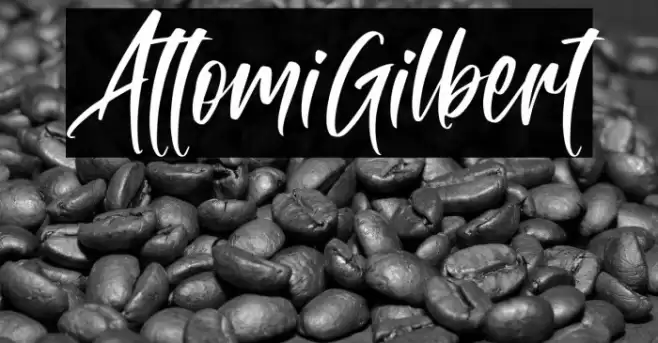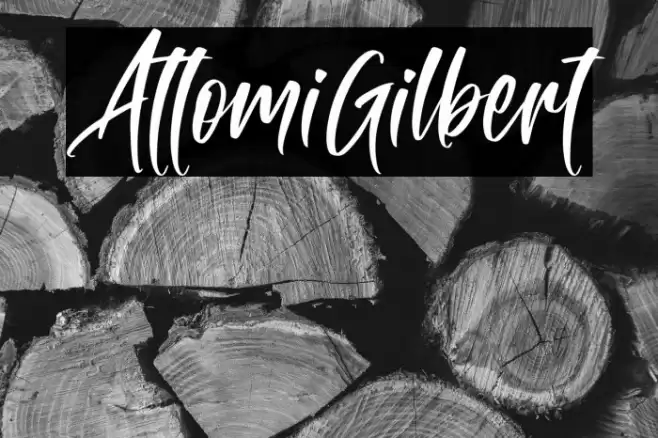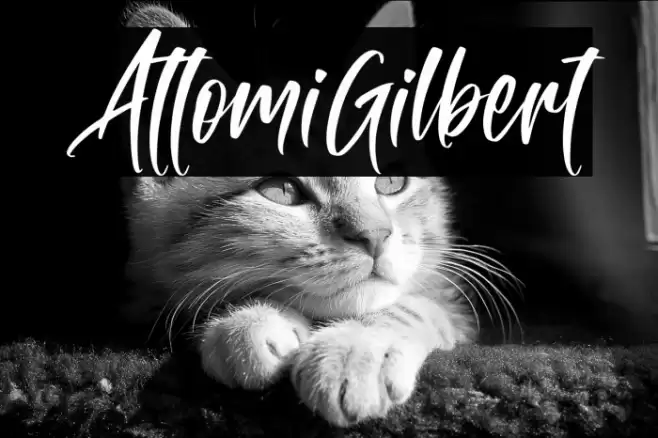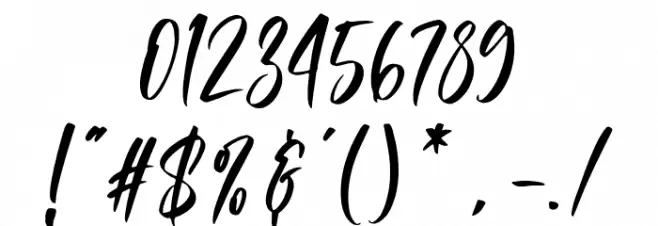
AttomiGilbert Font
AttomiGilbert Description
This font features a dynamic and expressive handwritten style, characterized by fluid strokes and a natural, flowing rhythm. The letters are slightly slanted, giving a sense of motion and elegance. The uppercase letters are bold and prominent, while the lowercase letters maintain a consistent flow, enhancing readability. The numerals and special characters are crafted with the same attention to detail, ensuring a cohesive look across all elements. This font exudes a personal touch, making it ideal for projects that require a humanistic and artistic feel.
A dynamic, expressive handwritten font with fluid strokes and elegant slant from Regular fonts.
- Proposed Projects: Ideal for wedding invitations, greeting cards, branding, and social media graphics.
- Use Case: Logos, Headlines, Invitations